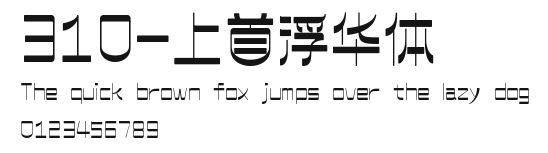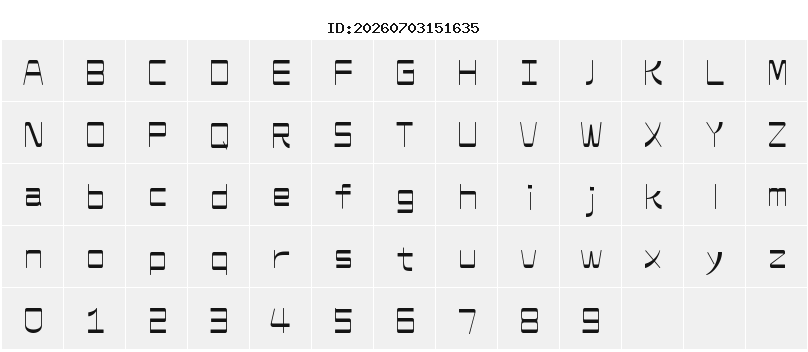
310-上首浮华体 Preview
• Font Name: 310-上首浮华体
• Manufacturer: 上首造字
About 310-上首浮华体.ttf
310-上首浮华体.ttf is a modern, elegant sans-serif font designed for ultimate readability and visual harmony. Perfect for branding, headlines, web design, and print materials.